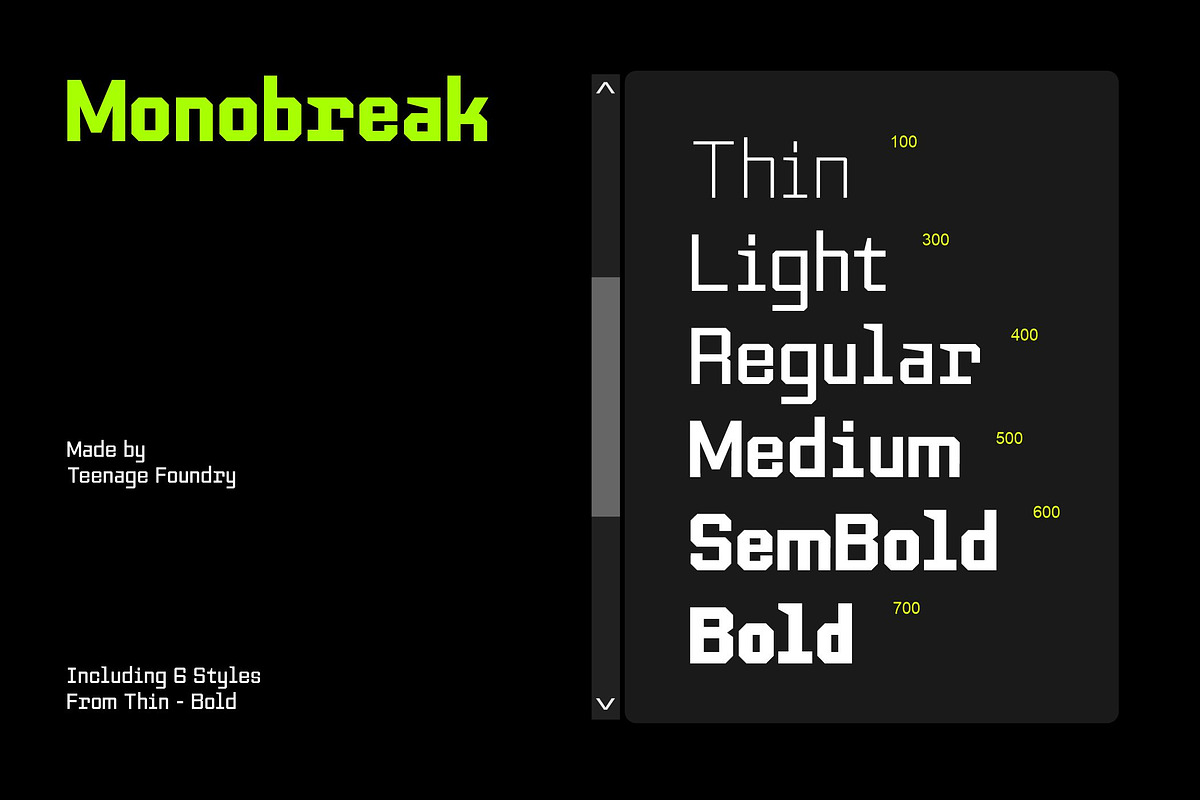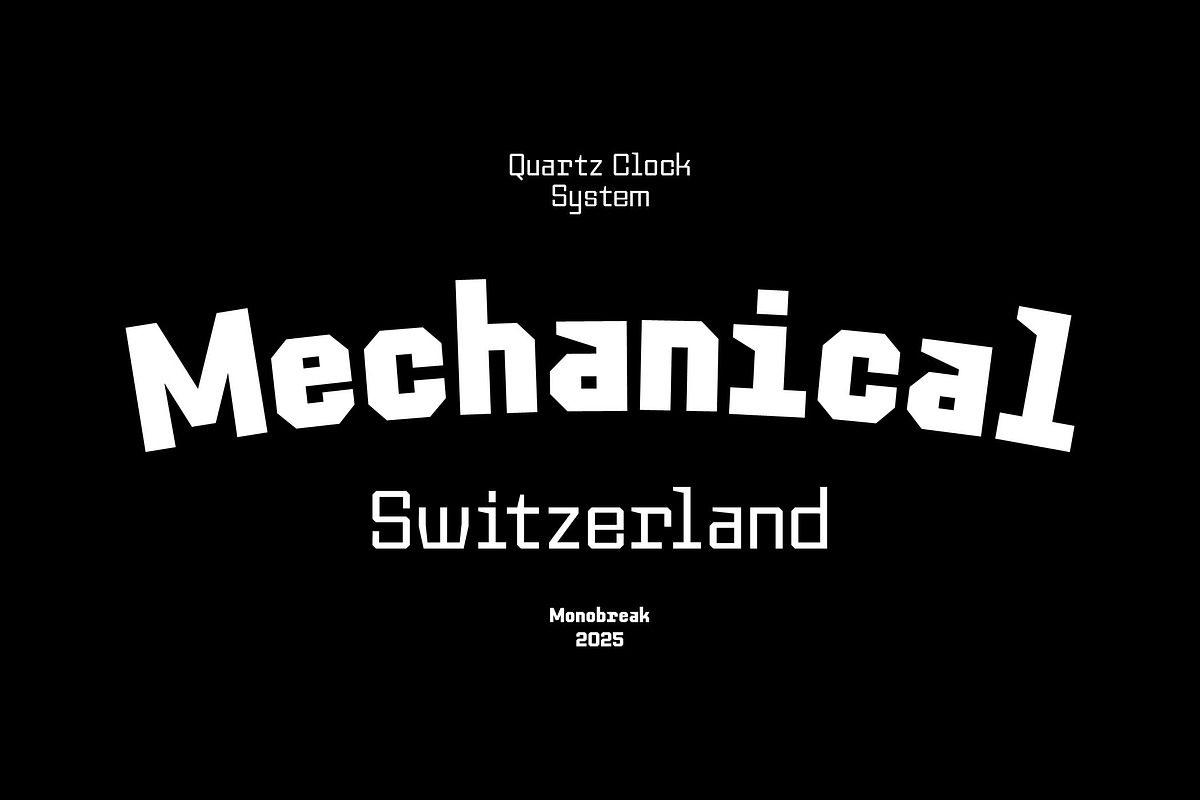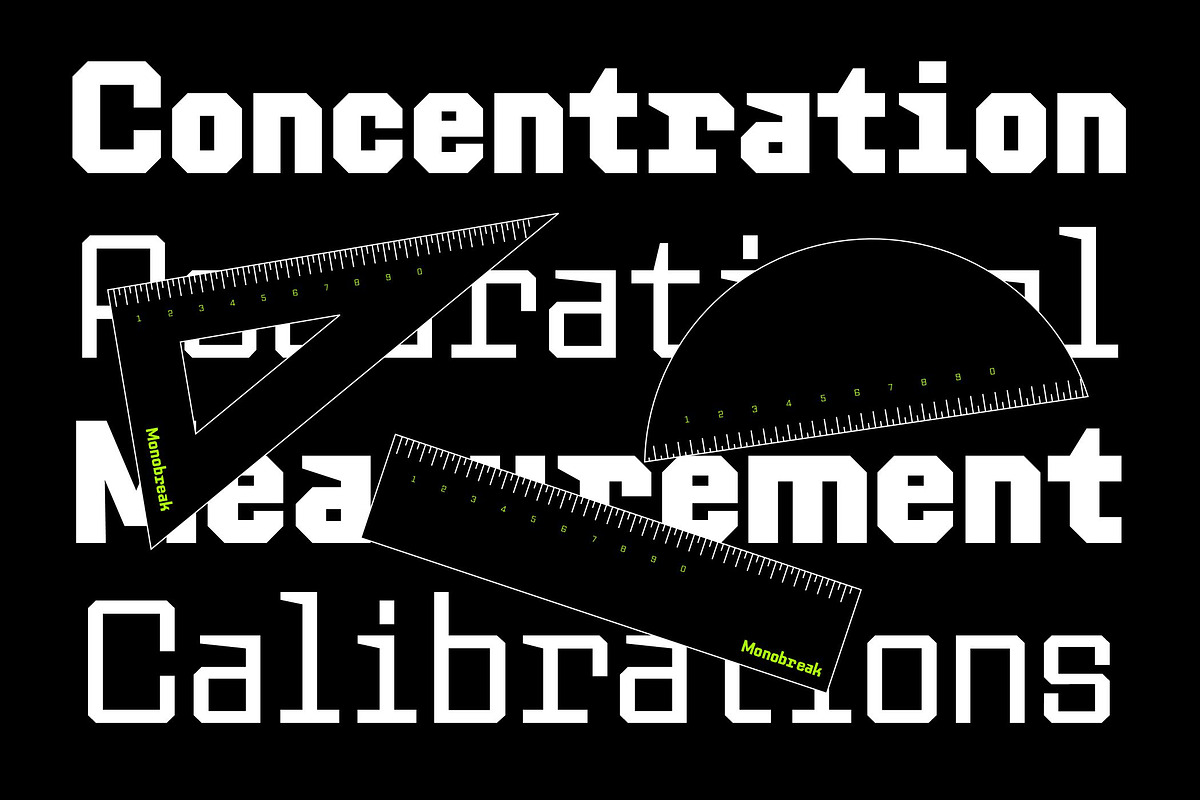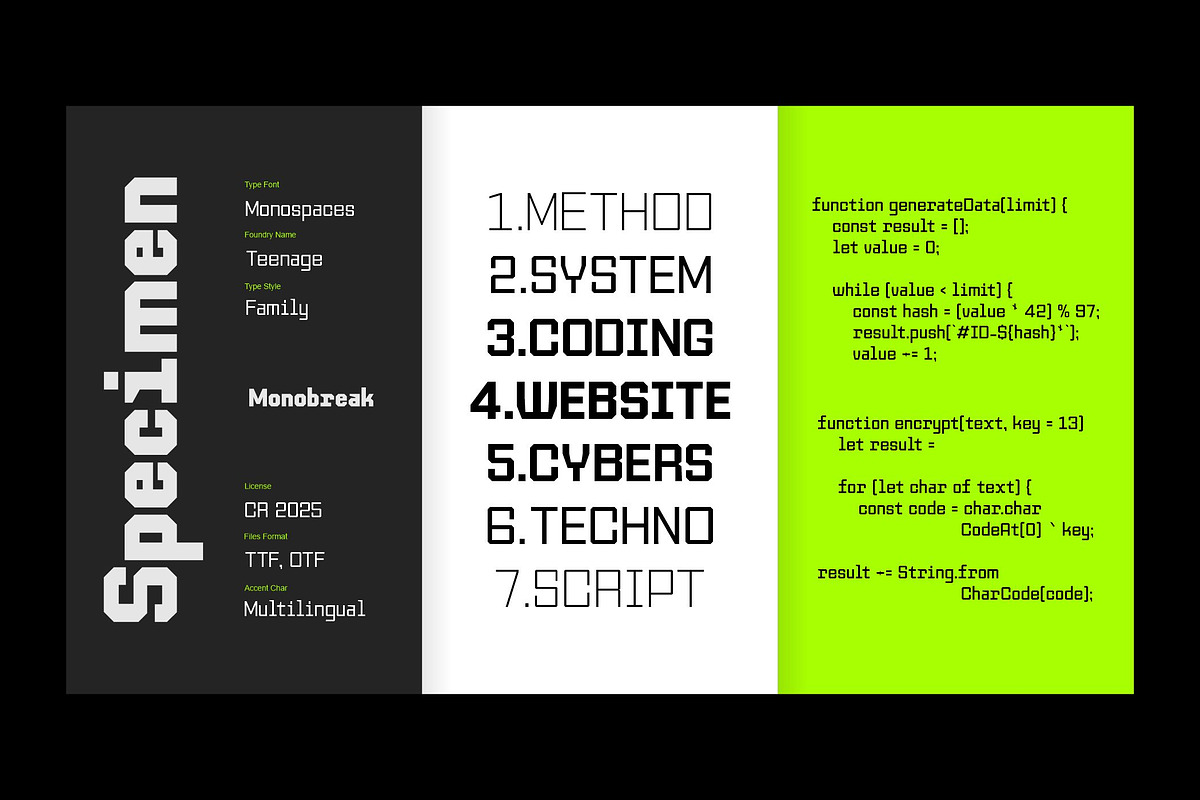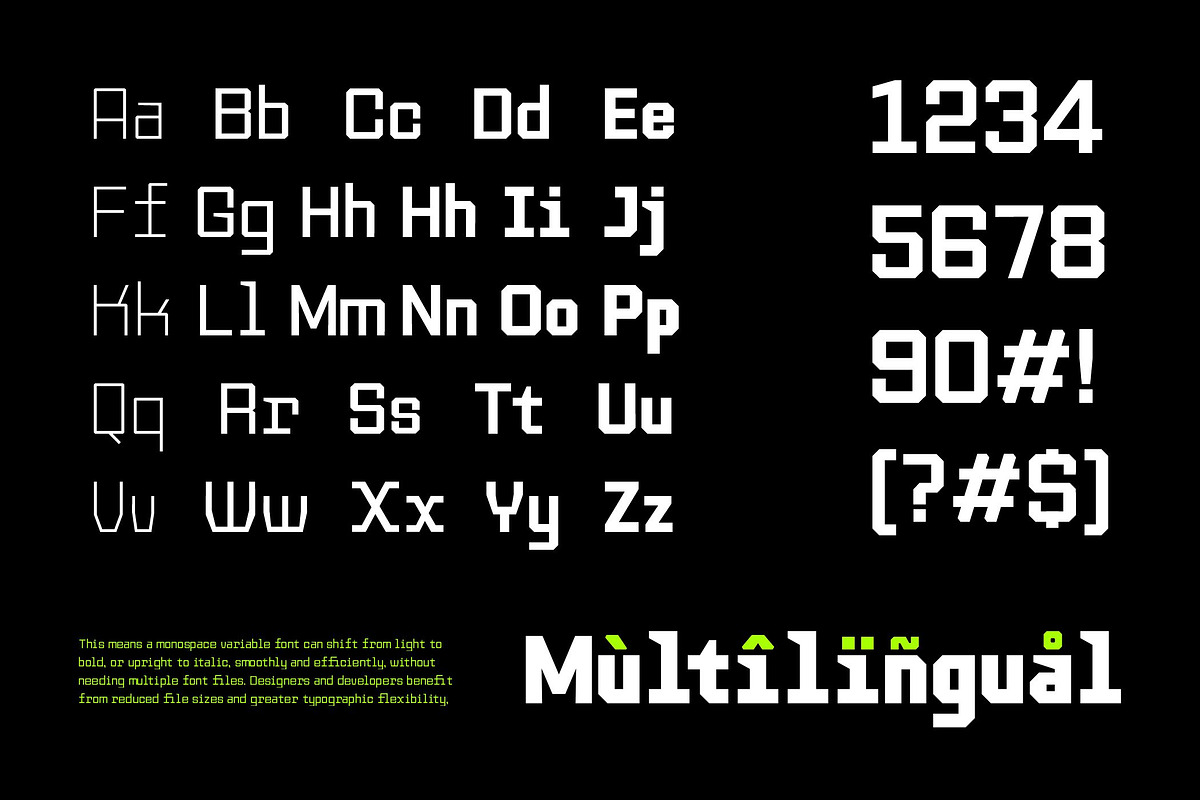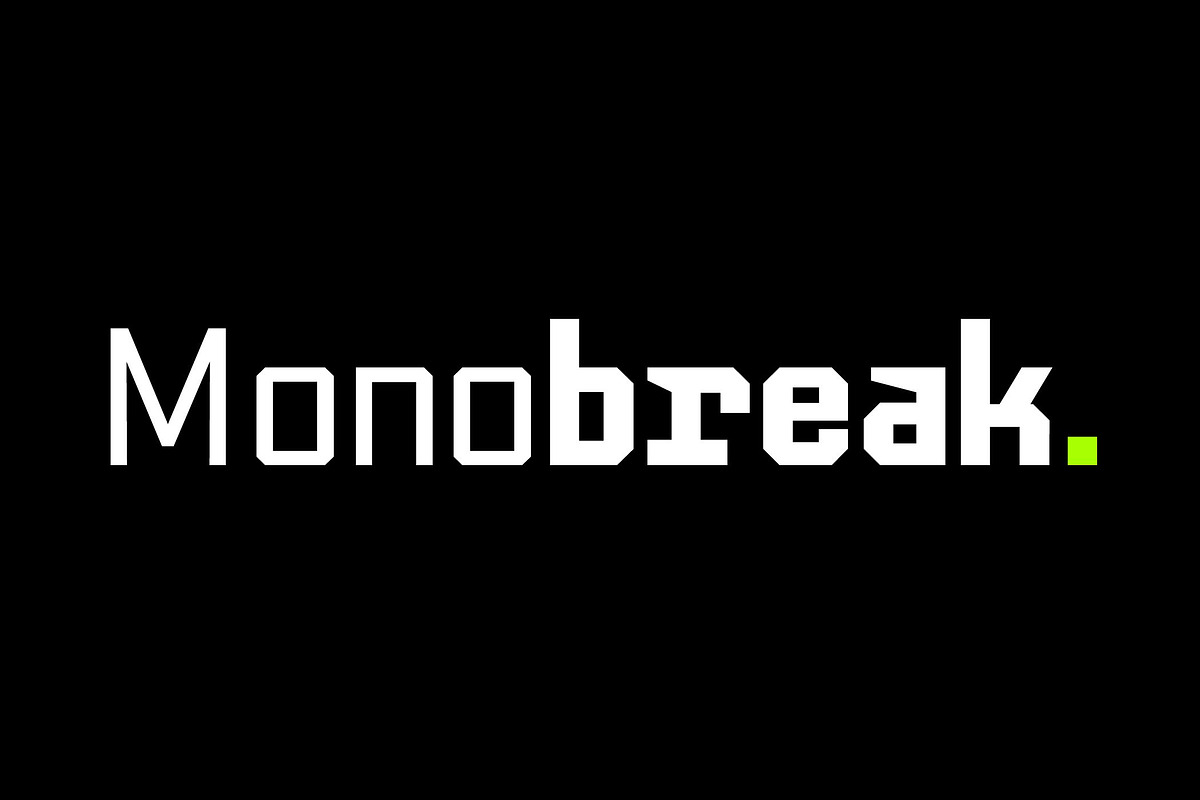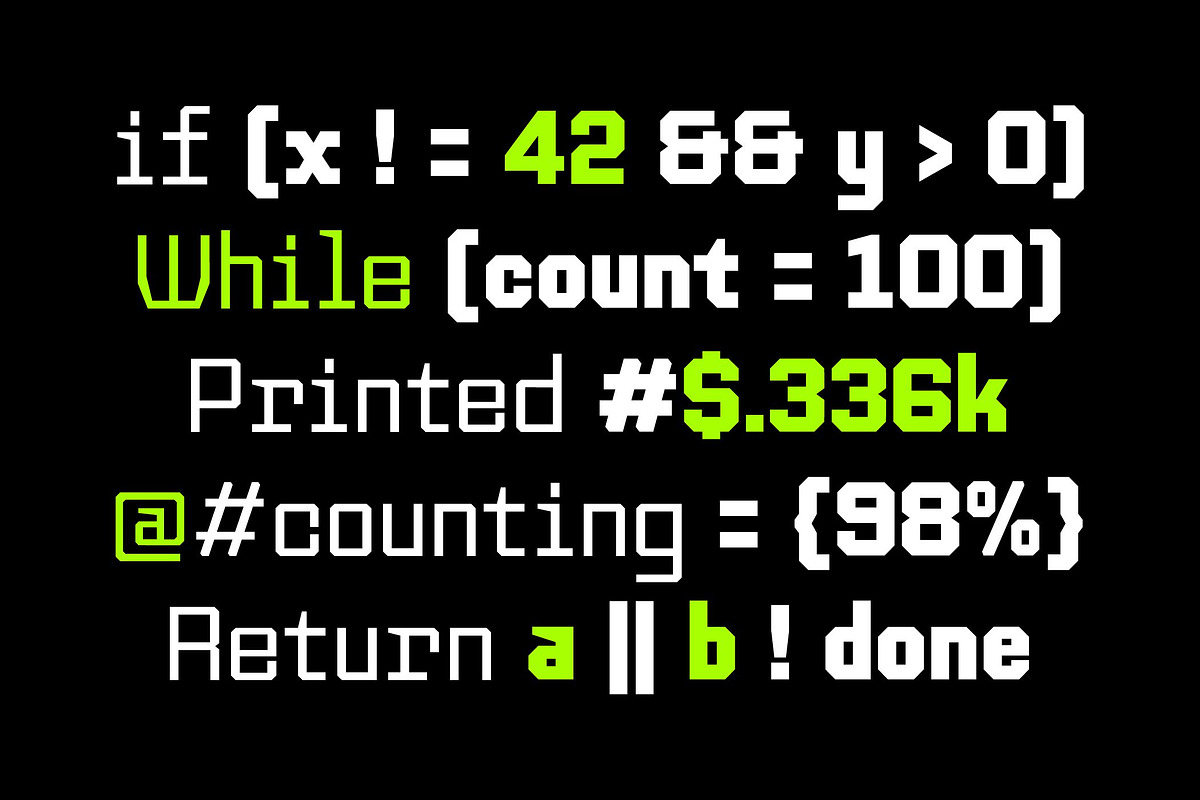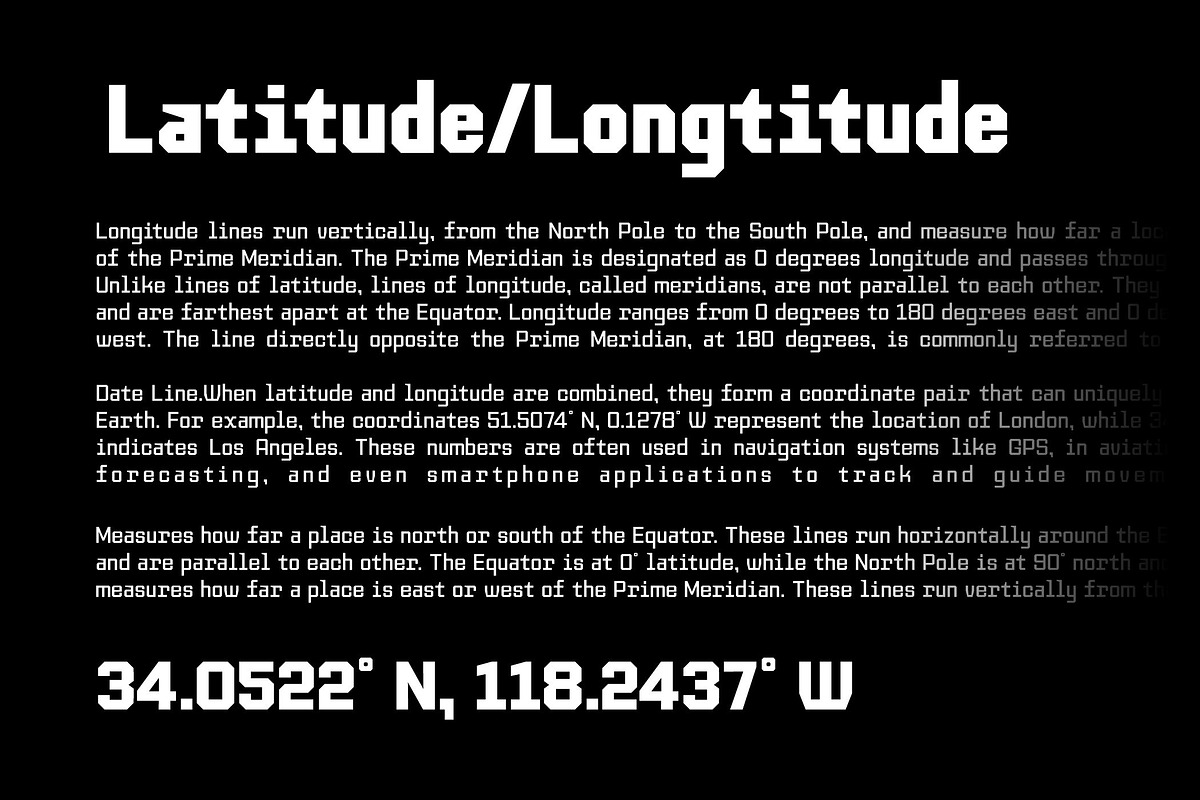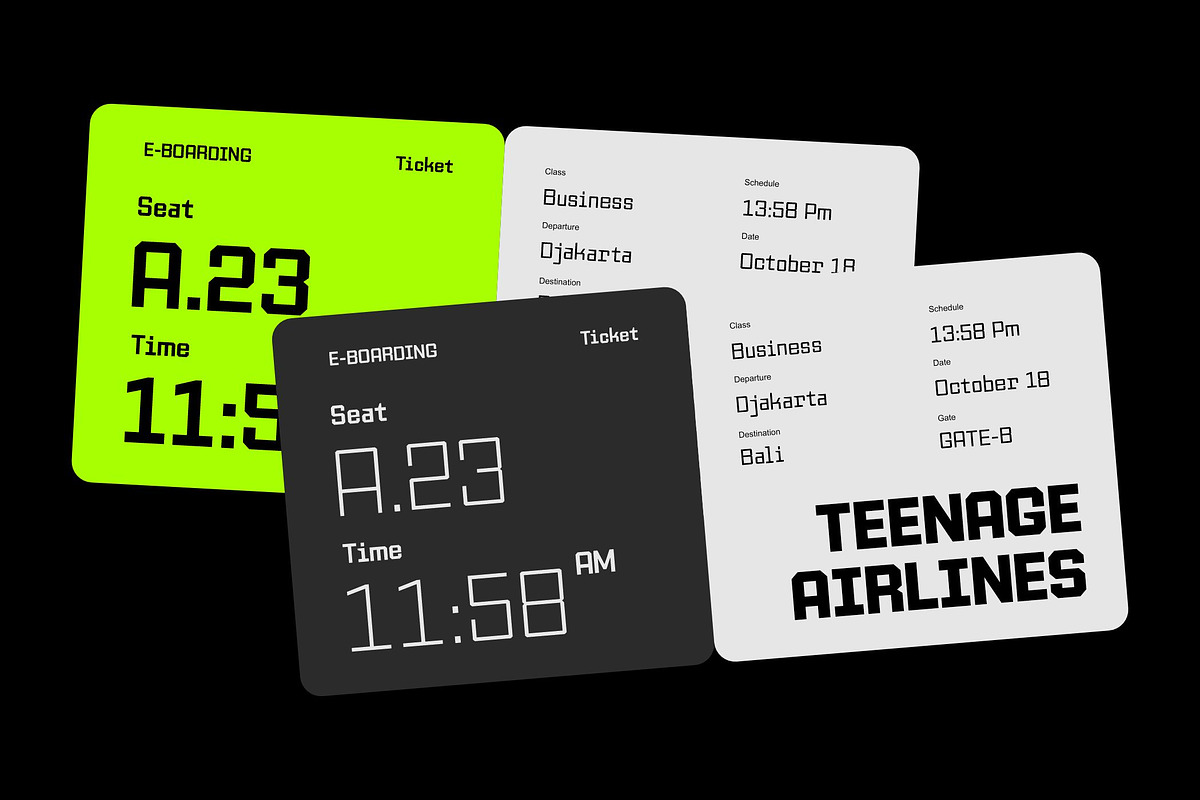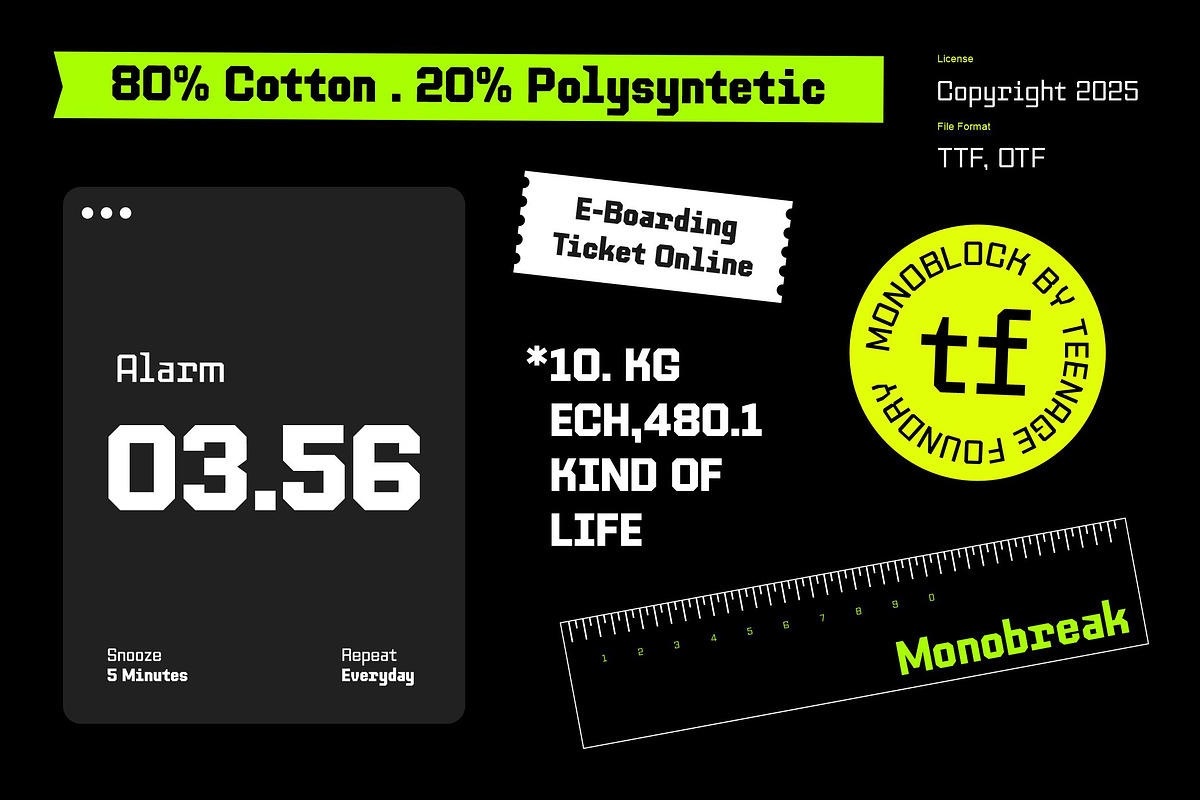
Monobreak Family!
Monobreak is a modern geometric monospace font crafted with clean precision and refined balance. Each character is built with a perfect harmony of technical structure and contemporary style, making it ideal for designs that demand a bold, professional, and futuristic presence.
Featuring five weights from Thin to Bold Monobreak offers exceptional versatility for a wide range of uses, from digital interfaces and modern branding to minimal editorial layouts. With its consistent rhythm and sleek construction, Monobreak delivers a sense of stability, clarity, and technical elegance in every line of text.
- Uppercase & Lowercase Letters